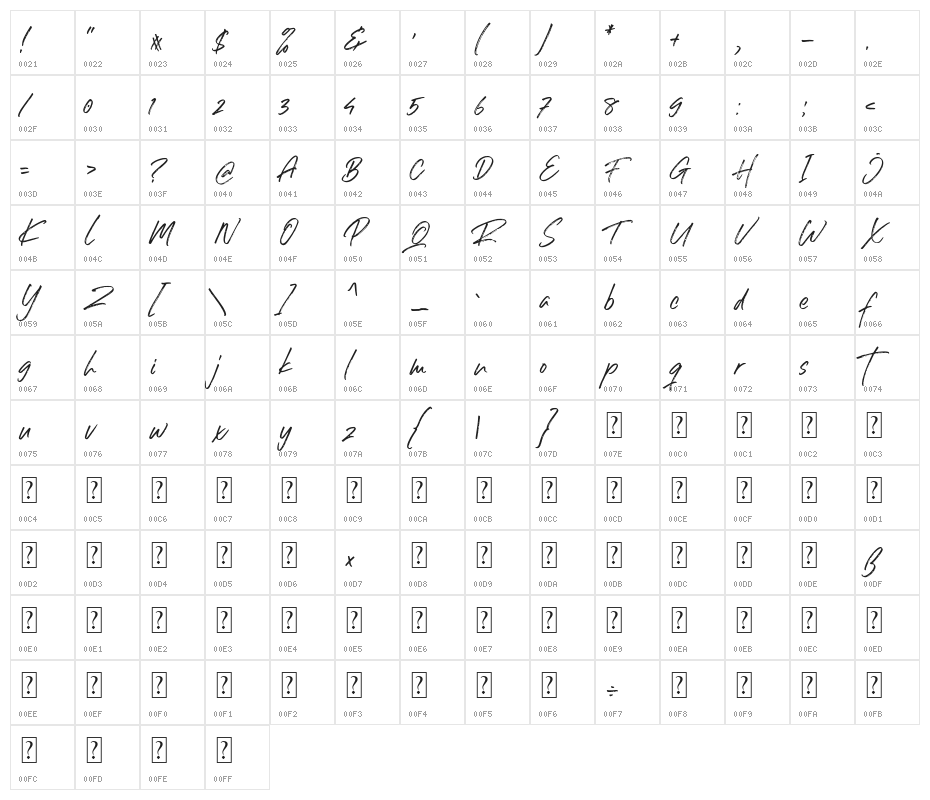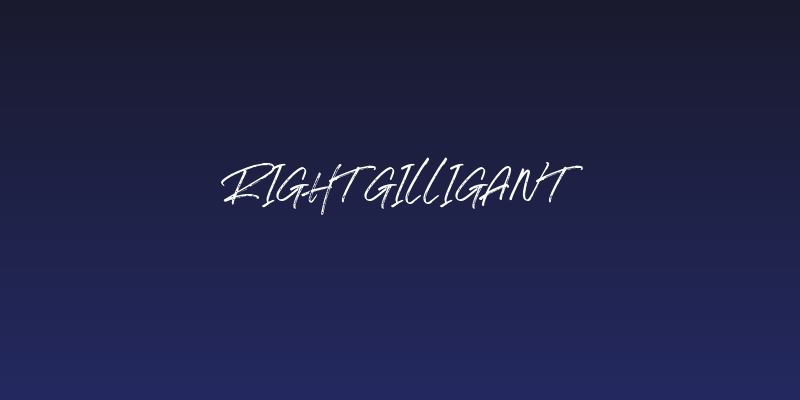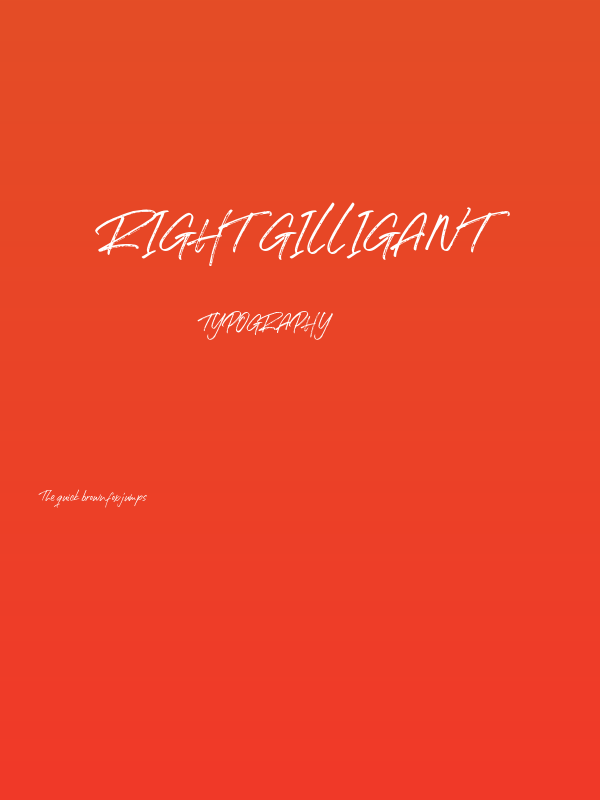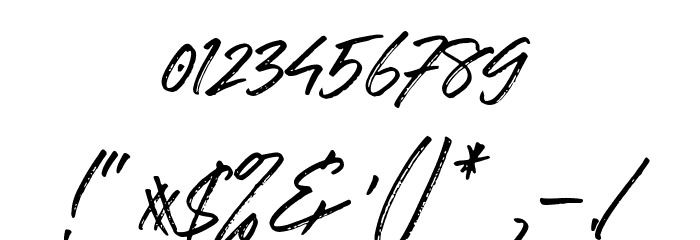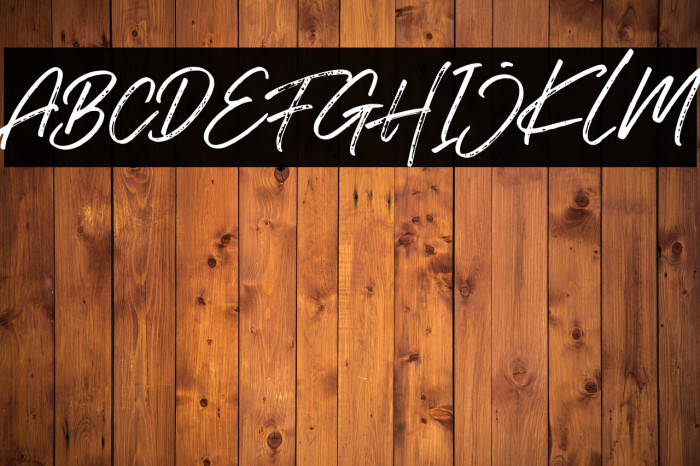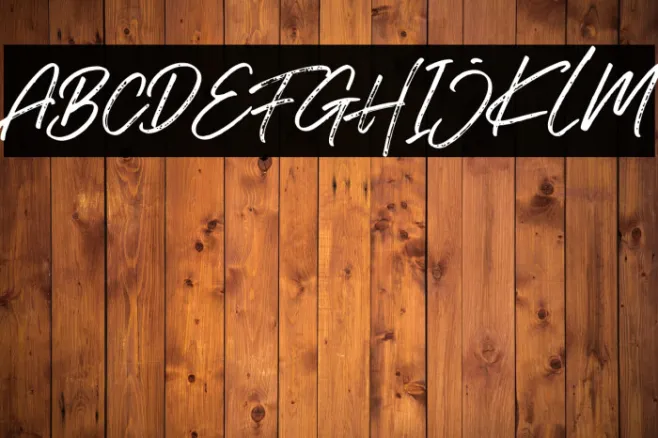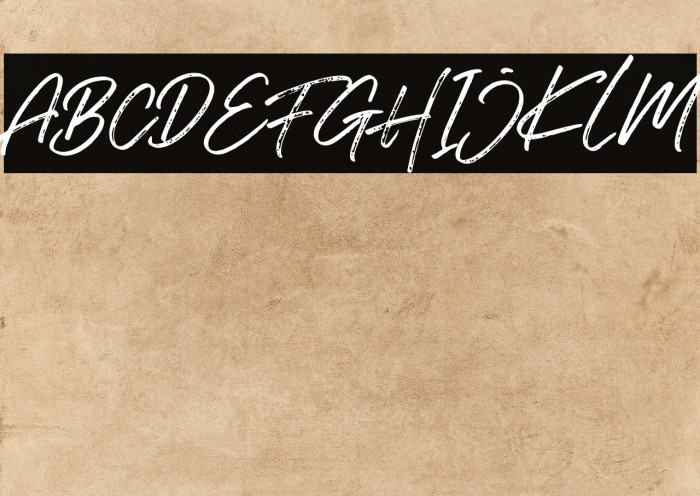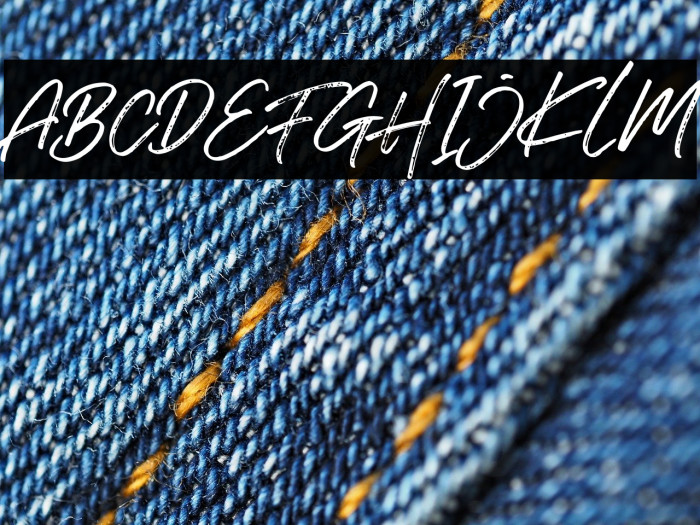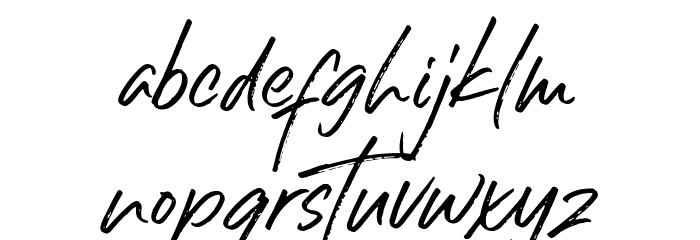
Right Gilligant Font
Right Gilligant Description
This font exhibits a dynamic and expressive handwritten style, characterized by its fluid strokes and slightly irregular letterforms. The uppercase and lowercase letters maintain a consistent slant, enhancing the casual and personal feel of the typeface. The strokes vary in thickness, adding a sense of movement and energy to the text. The numerals and special characters are crafted with the same lively flair, ensuring a cohesive appearance across all glyphs. This font is ideal for projects that require a personal touch, such as invitations, greeting cards, or branding materials that aim to convey creativity and individuality.